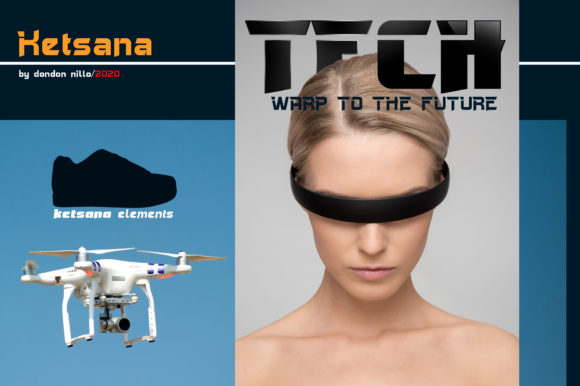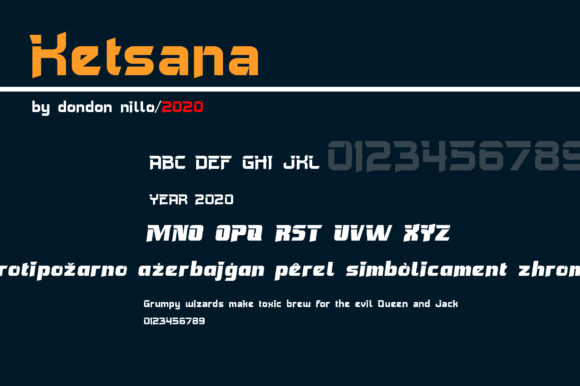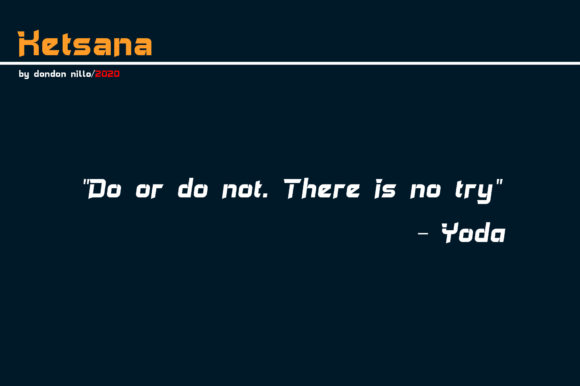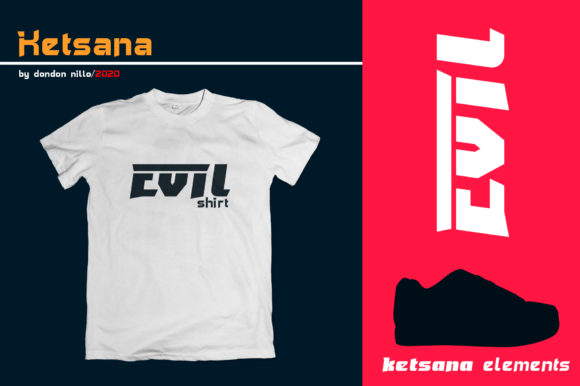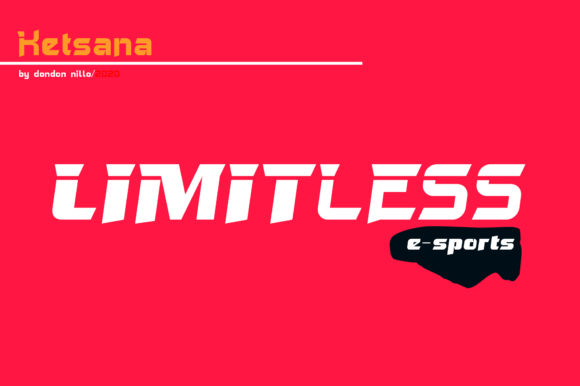
Introduction to Ketsana Font
Have you ever found yourself stuck in a creative rut, staring at a blank canvas, desperate for the perfect font to bring your futuristic design to life? It’s a feeling we’ve all been there, but what if I told you there’s a font that could change everything? Introducing the Ketsana Font, a game-changing design resource that’s about to revolutionize your creative project.
With its sleek, minimalist style, the Ketsana Font is perfect for designers who want to create high-quality logos, graphics, and visual identities that exude a sense of cutting-edge technology and sports-inspired cool. Whether you’re working on a futuristic sci-fi project or a high-tech startup, this versatile font is sure to deliver. And the best part? It’s available for a free download, making it an accessible design resource for designers of all levels.
Key Features of Ketsana Font
- Designed with a unique, elegant aesthetic making it suitable for a wide range of creative projects.
- Supports various languages and characters, making it a valuable resource for multilingual design projects.
Honest Review: Ketsana Font
As a designer, I’m always on the lookout for high-quality design resources that can elevate my creative projects. Recently, I stumbled upon the Ketsana Font, and I must say, it’s been a game-changer for me.
- Unique and elegant design style
While I love the Ketsana Font, there are a few limitations to consider:
Overall, I’m thoroughly impressed with the Ketsana Font. Its unique design style and high-quality files make it an excellent addition to any design project. Whether you’re working on a personal or professional project, the Ketsana Font is definitely worth checking out.
Tips for Getting the Most Out of Ketsana Font
To get the most out of the Ketsana Font, use it in combination with other design elements, such as graphics and images. This will help create a visually appealing and cohesive design. Additionally, experiment with different font sizes and styles to add depth and interest to your design.
Common Use Cases for Ketsana Font
The Ketsana Font is perfect for a variety of creative projects, including graphics, presentations, and documents. Its high-quality design and transparent background make it ideal for use in both digital and print-based designs.